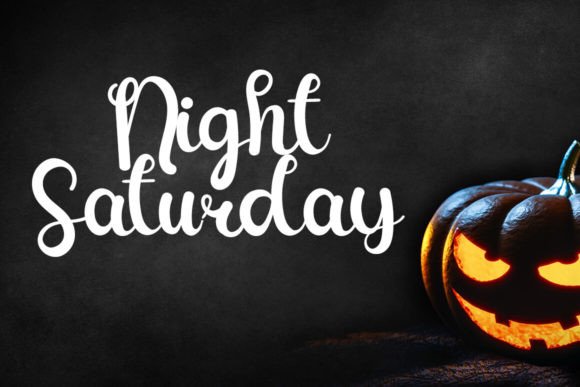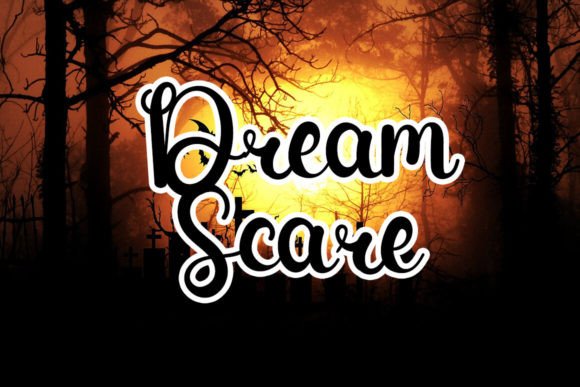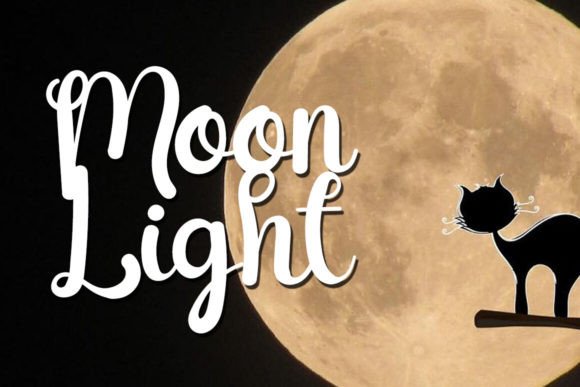
Introduction to Hello Ween Font
Introducing an exquisite typography masterpiece – Hello Ween Crafted to perfection, this font radiates an aura of freshness, cleanliness, and elegance that can bring even the simplest designs to life.
This font’s fine detailing serves as a versatile centerpiece for a myriad of projects, seamlessly adapting to both formal and informal settings Imbued with a jovial touch, it stands as a testament to the power of refined simplicity in design.
Key Features of Hello Ween Font
Why Choose Hello Ween Font?